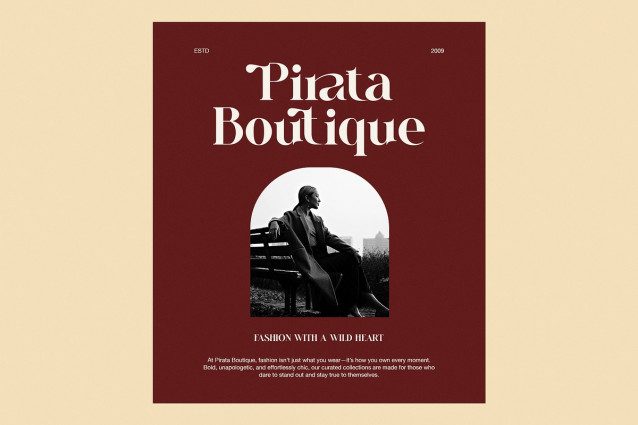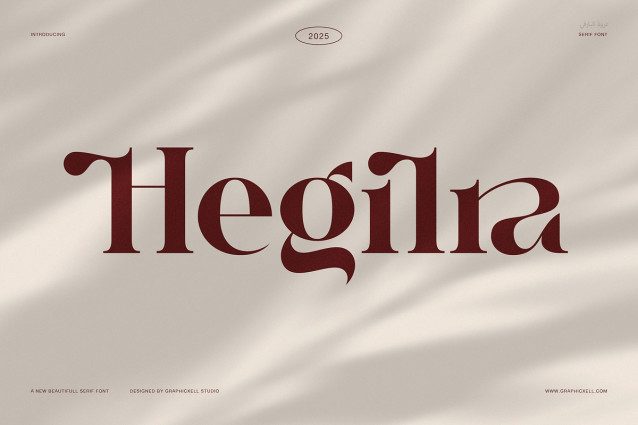
Hipotesa Font
Hipotesa Font is a clean and graceful typeface that blends classic beauty with a modern touch. It was made for designers who love timeless design and calm elegance. Because of its soft curves and balanced form, Hegilra looks perfect in branding, weddings, packaging, and magazines.
Every letter in Hegilra flows smoothly. The contrast between strokes feels gentle, while the subtle serifs add personality without being bold. As a result, your words appear stylish and easy to read. In addition, its even spacing makes layouts look neat and professional.
Hegilra comes with uppercase and lowercase letters, numbers, punctuation, alternates, and ligatures. It also includes multilingual support, allowing you to use it for many creative needs. Therefore, this serif font works well for global projects that need both beauty and clarity.